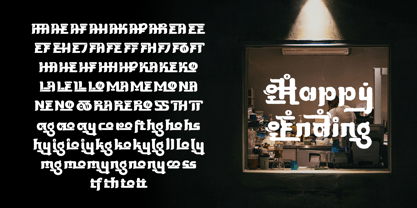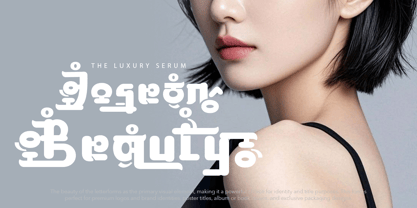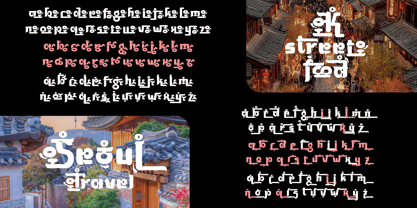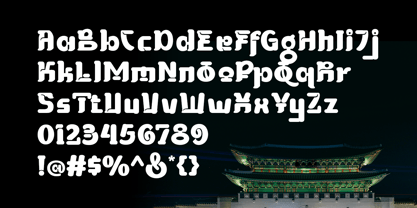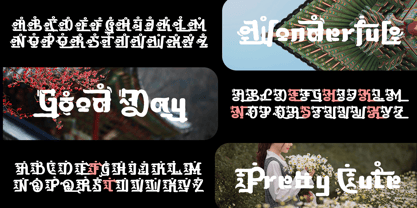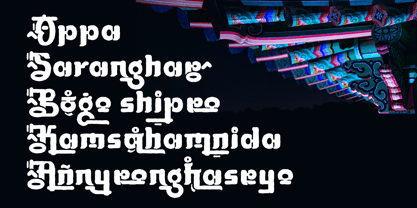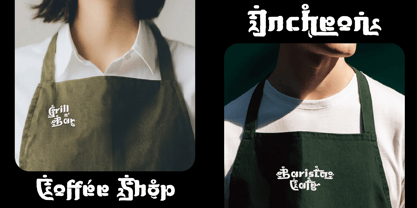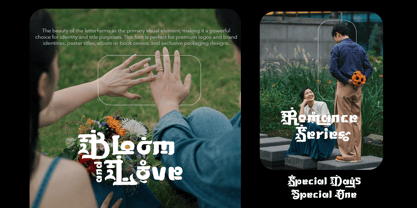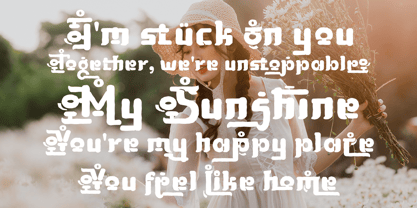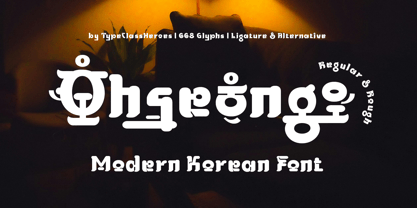
Ohseong
by TypeClassHeroes
The Ohseong Font Family was designed by Suandana ipandemade and published by TypeClassHeroes. Ohseong contains 2 styles and family package options. More about this family
Introducing Ohseong, this font features unique characters with bold, rounded shapes and distinctive decorative elements. Its design is inspired by the visual structure of Korean letters (Hangul), particularly the use of solid lines, balanced block proportions, and small circular details that resemble phonetic elements in Korean script. While not authentic Hangul, this font adapts Korean aesthetic nuances with a more experimental and artistic approach, resulting in a modern, playful, and characterful look. Its unconventional shapes create a decorative yet expressive feel, making it suitable for creative designs such as posters, branding, titles, or visual works that seek to convey a Korean touch with a more free and contemporary style.